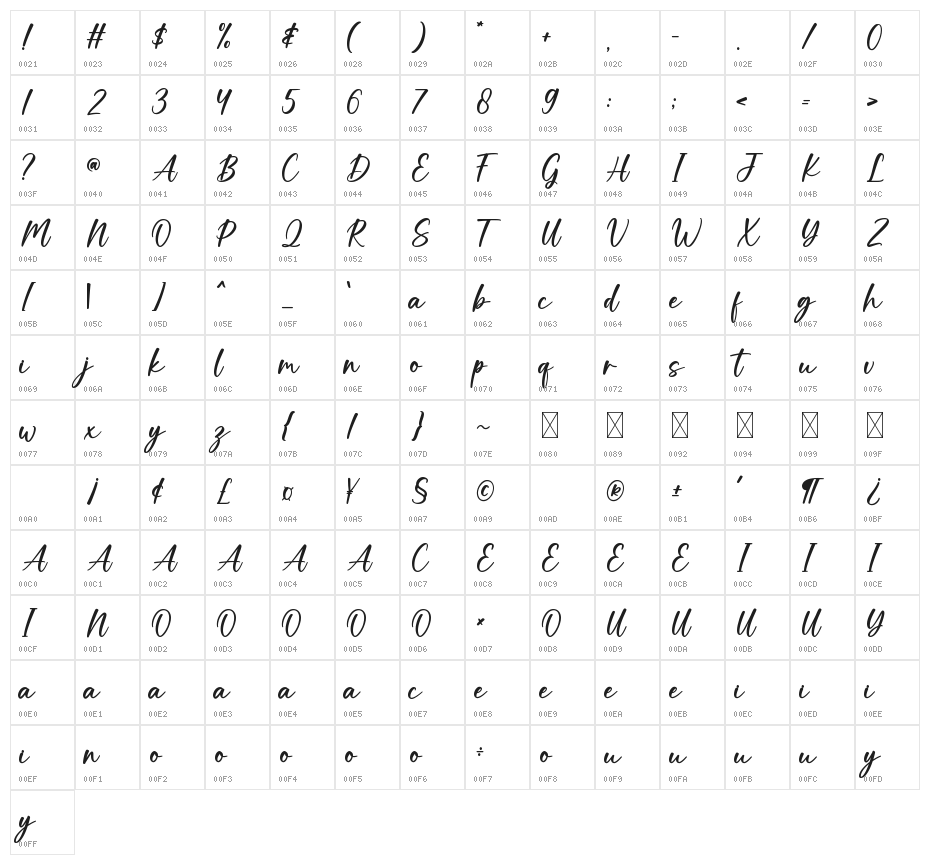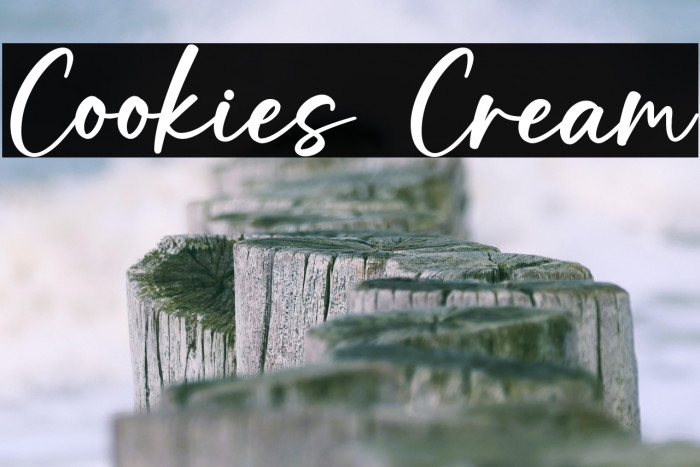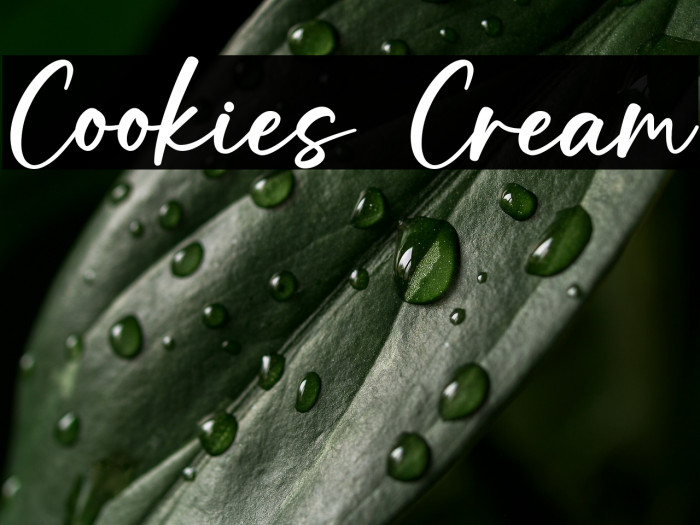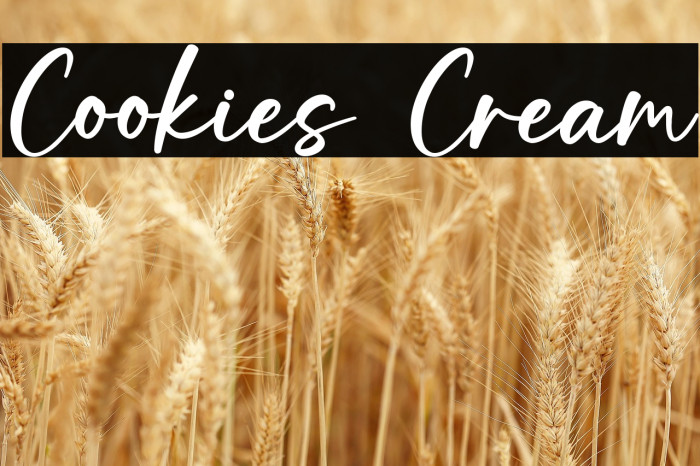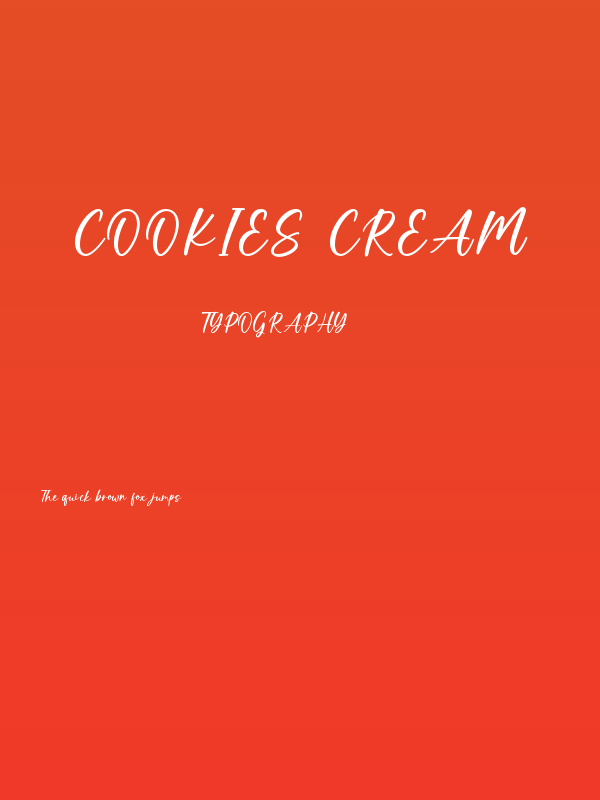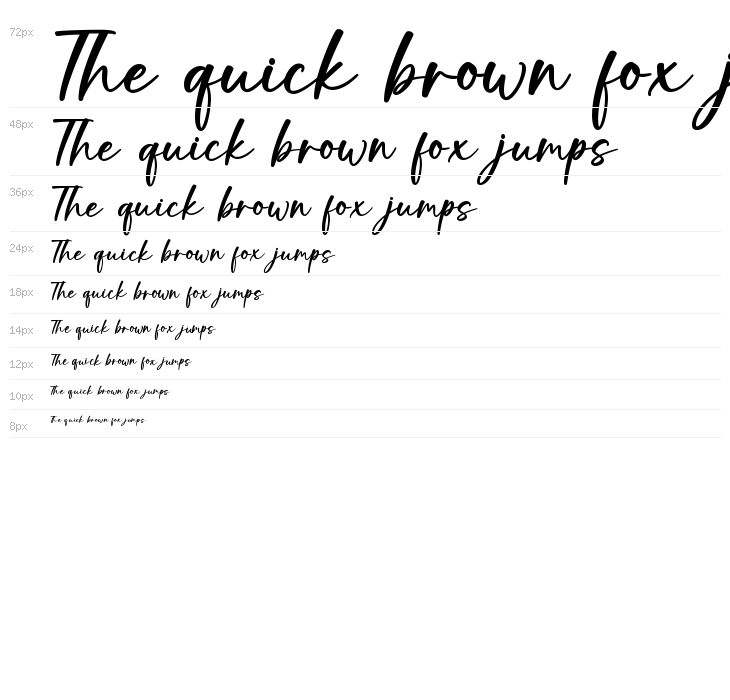
Cookies Cream Font
Cookies Cream Description
This font features a lively and flowing script style, characterized by its elegant and smooth curves. The letters are interconnected, creating a sense of continuity and fluidity. The uppercase letters are slightly more ornate, with flourishes that add a touch of sophistication. The lowercase letters maintain a consistent rhythm, enhancing readability while retaining a stylish appearance. Numbers and special characters are designed to match the overall script aesthetic, ensuring a cohesive look across all text elements. This font exudes a sense of elegance and creativity, making it suitable for a variety of design projects.
Overall StyleElegant
Use CaseLogos, Invitations, Decorative text
Proposed ProjectsIdeal for wedding invitations, greeting cards, branding, and logo design.